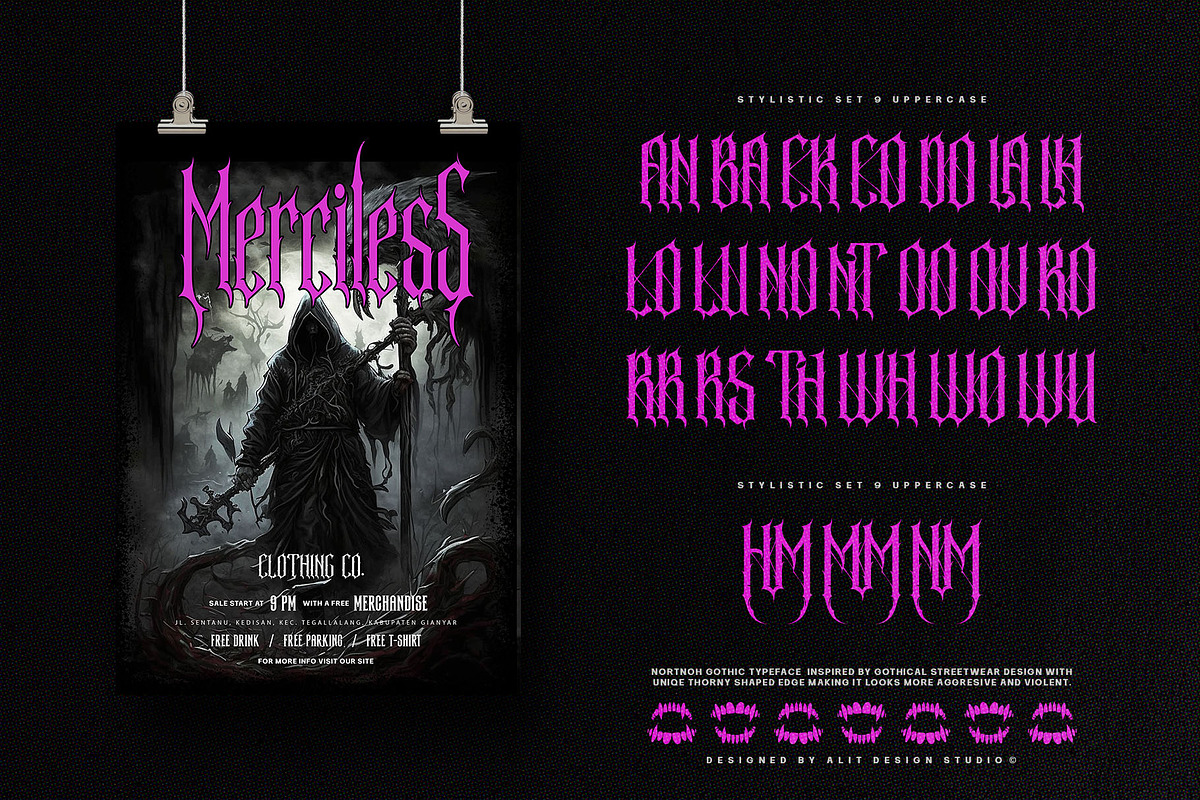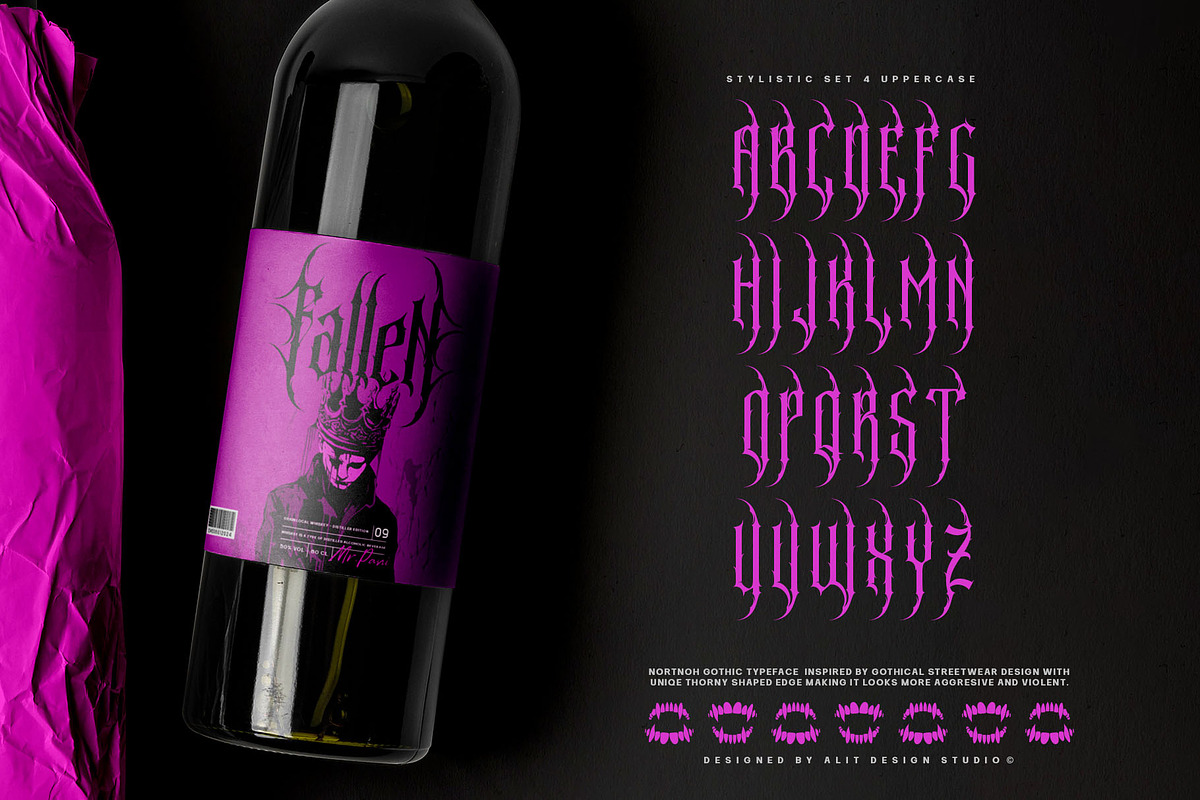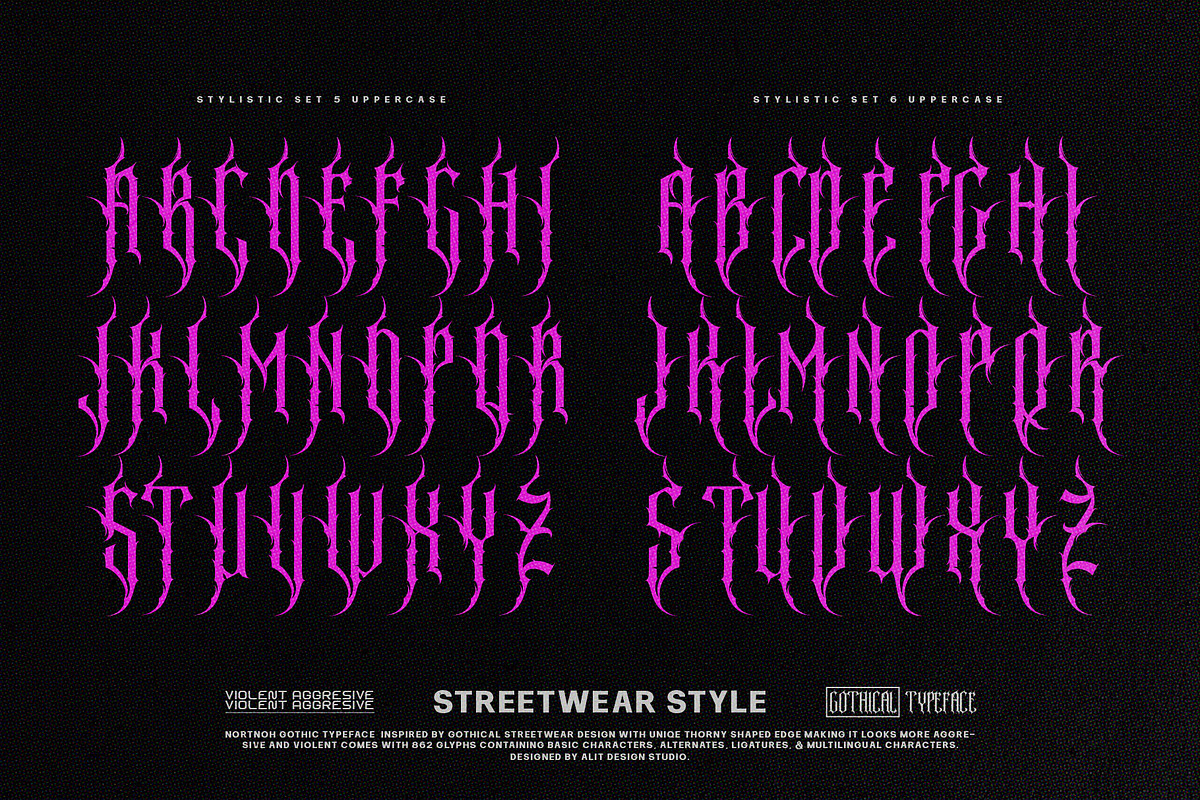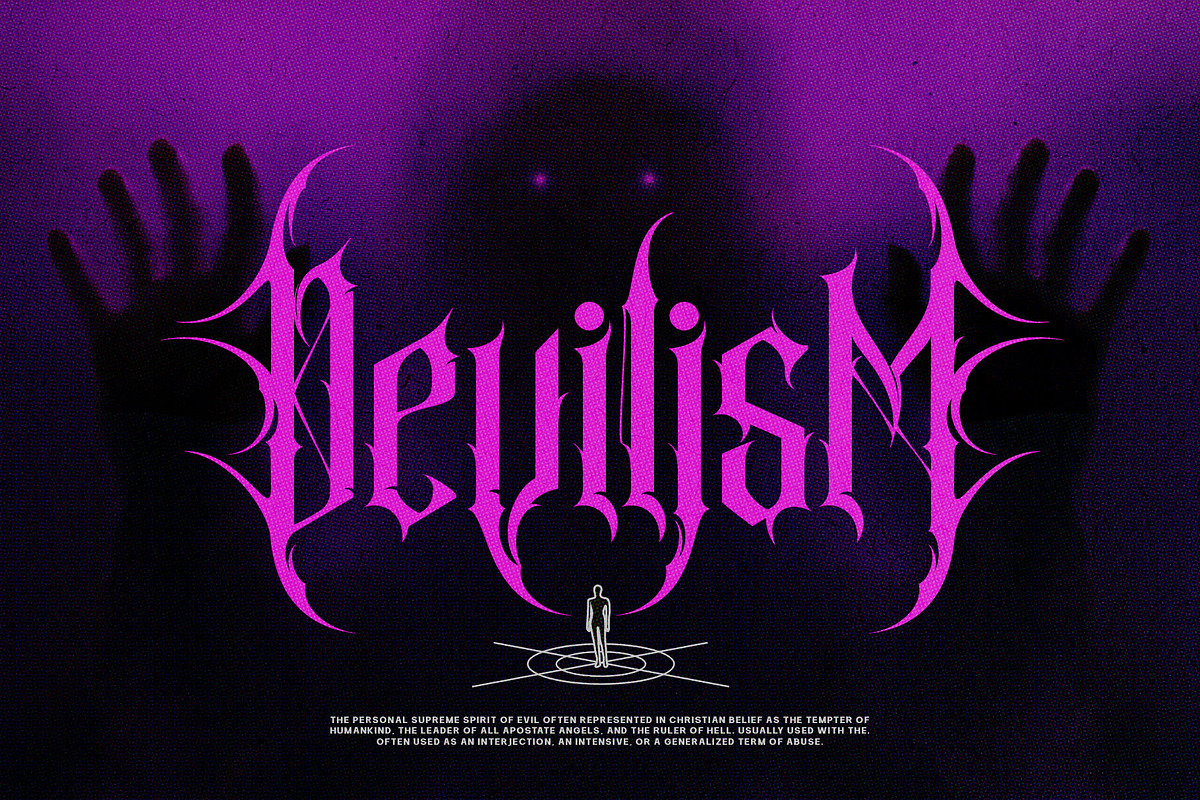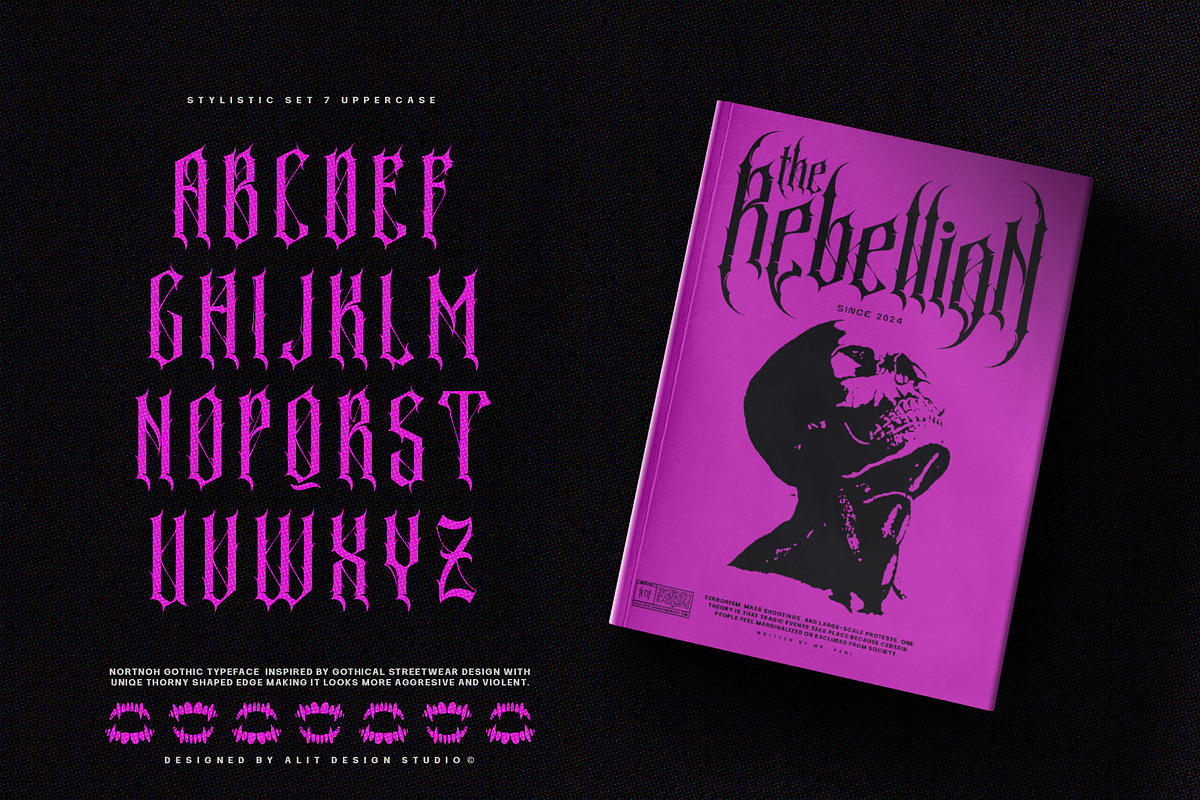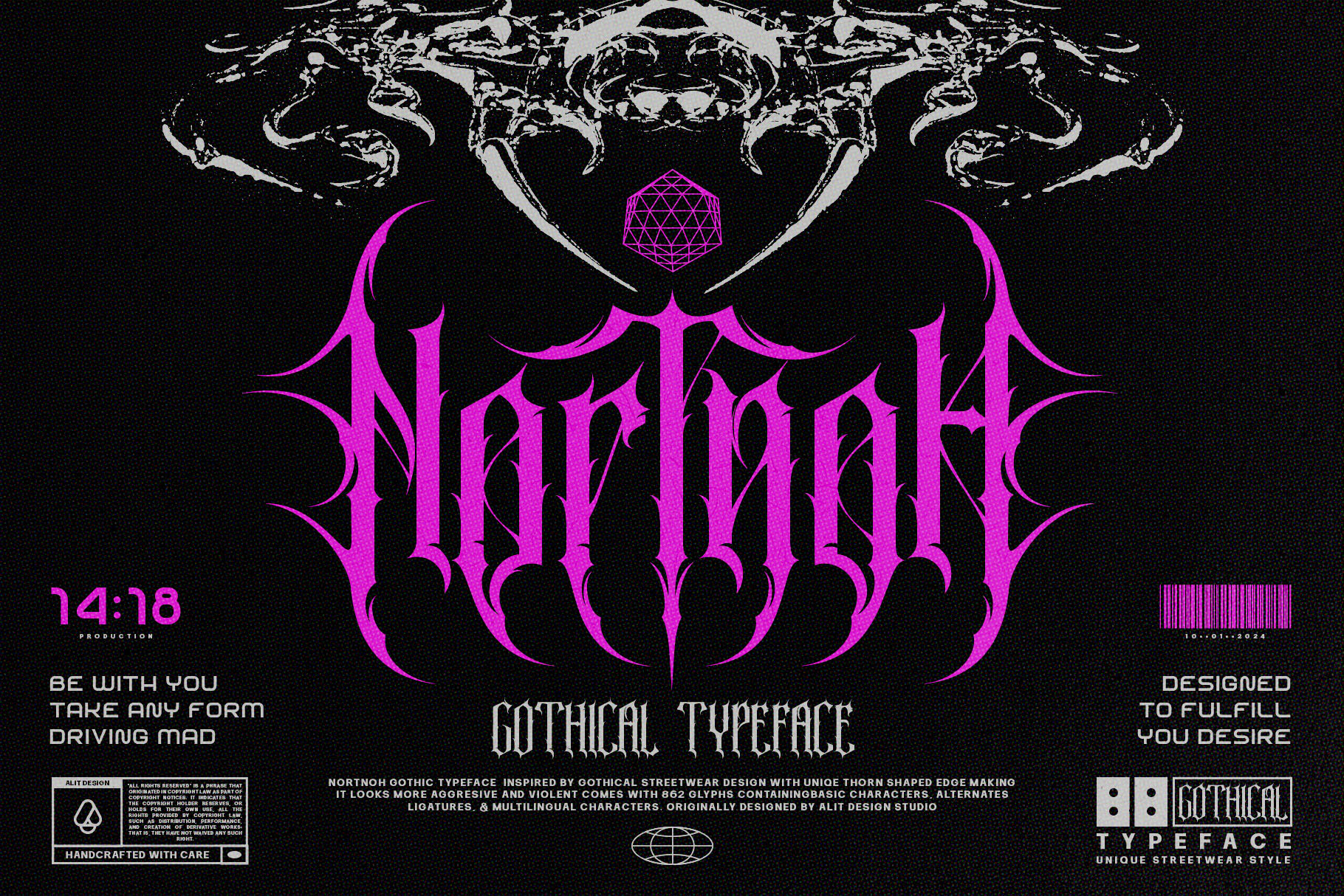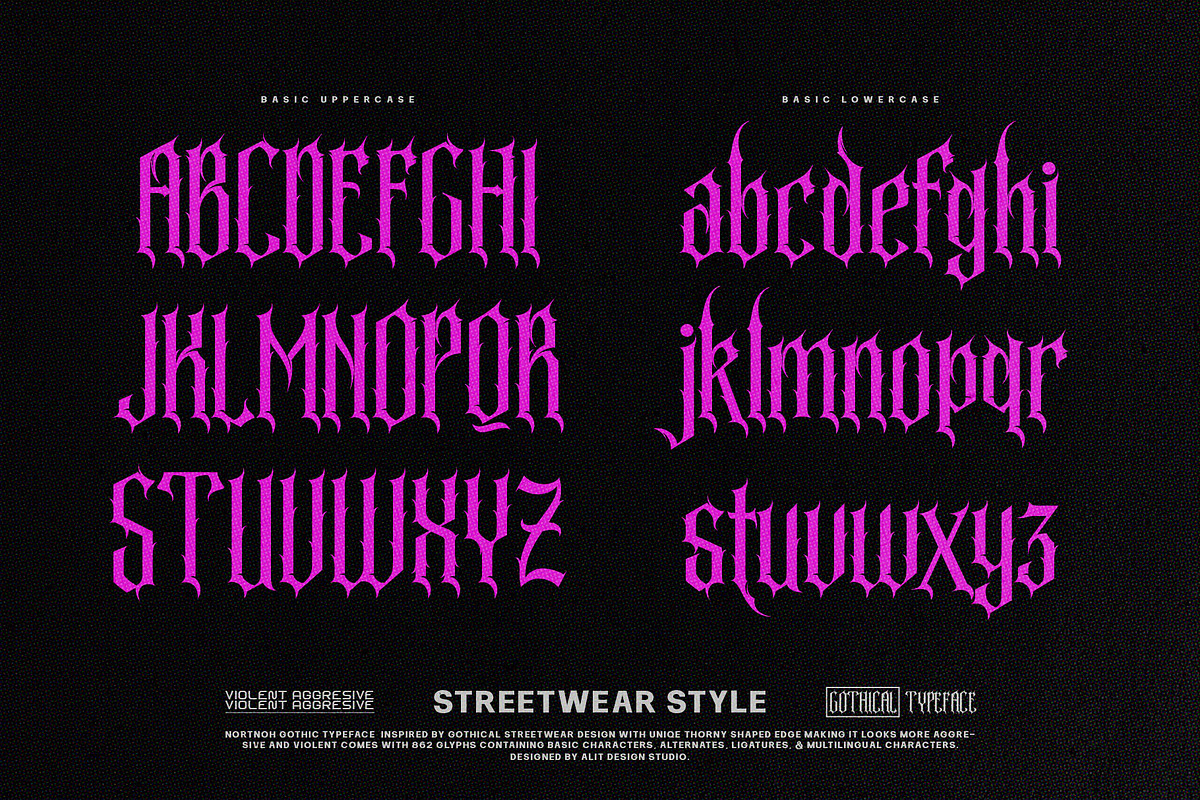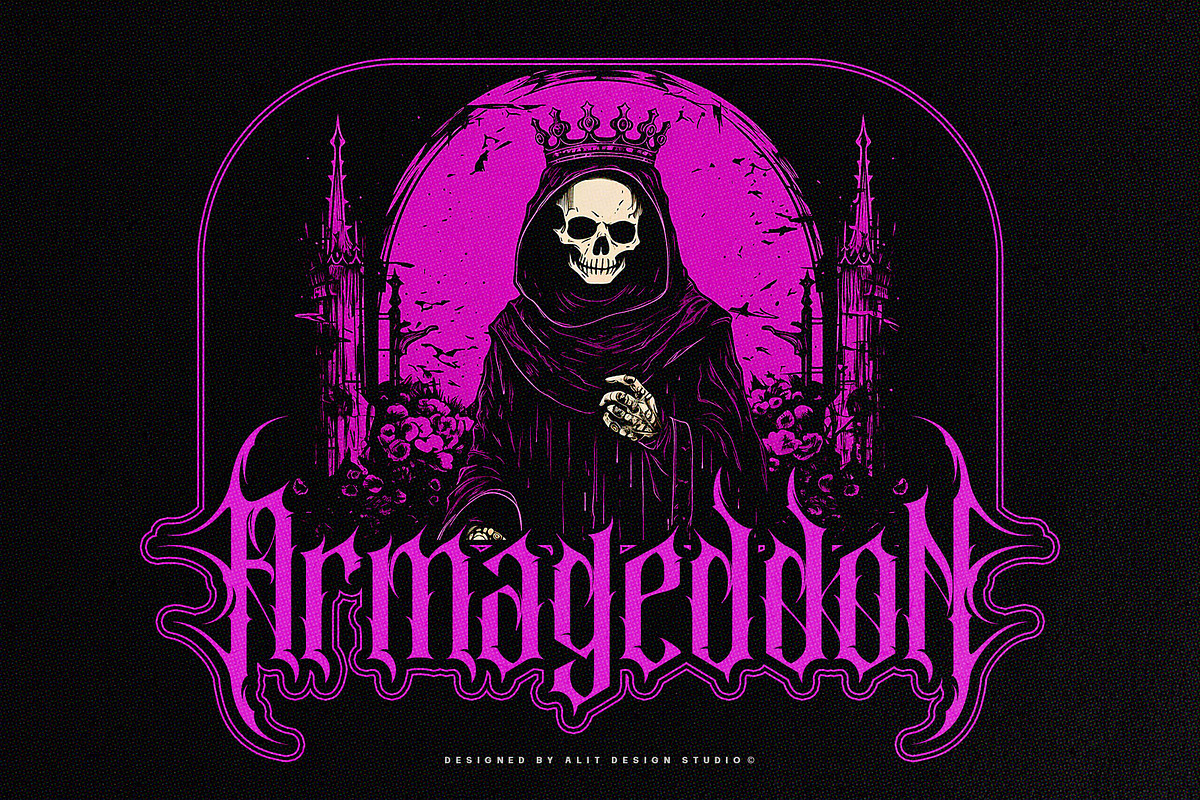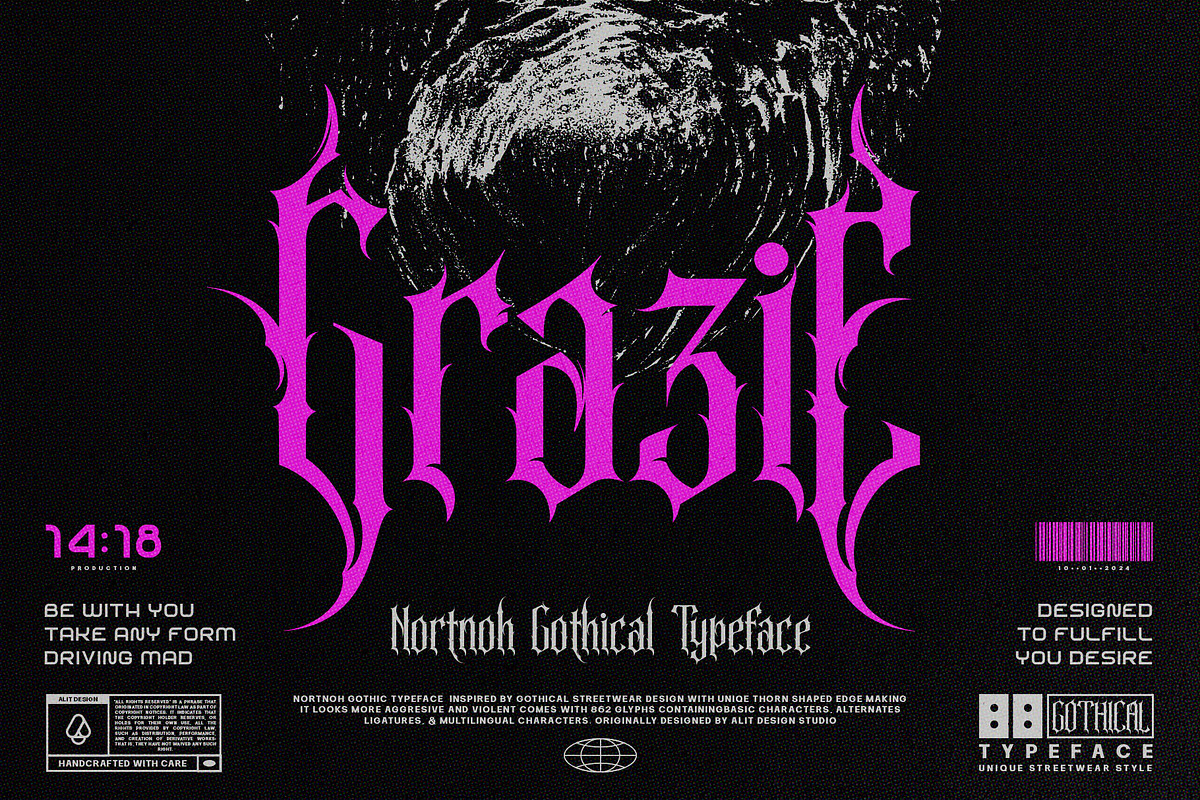
Nortnoh Metal Modern Typeface
Introducing the "Northnoh Metal Modern Typeface" – where the raw power of brutalism meets the modern edge of dead metal aesthetics. Unleash the untamed spirit of your designs with this bold and brave font that boasts a prickly character, exuding strength and attitude.
Designed for those who dare to be different, this typeface is a true representation of fearless creativity. With 862 meticulously crafted glyphs, the "Northnoh Metal Modern Typeface" ensures a comprehensive arsenal for your typographic adventures. Explore a world of possibilities with included ligatures and alternatives, allowing you to customize and enhance your text with a touch of unique flair.
The font's distinctive personality is perfect for projects that demand an unconventional and daring approach. Whether you're working on album covers, posters, branding, or any other design where a fierce statement is required, the "Northnoh Metal Modern Typeface" rises to the occasion.
Embrace the rebellious spirit of dead metal while enjoying the ease of use and versatility this typeface offers. Its multilingual support broadens the horizons of your creativity, making it a global tool for expression.
Unleash the brutal beauty of "Northnoh Metal Modern Typeface" and let your designs scream with individuality. Elevate your projects to new heights with a font that challenges the norm and breaks free from the conventional boundaries of typography.